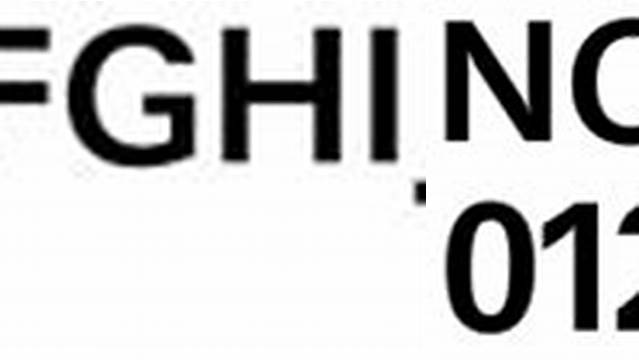
Maxima Medium Font: A Deep Dive
Alright, let's get acquainted with the star of the show: the Maxima Medium font. This isn't just any font; it's a workhorse designed for clarity and style. The Maxima font family is known for its clean lines and readability, making it a popular choice for both print and digital media. Its medium weight offers a balance between boldness and elegance, suitable for various design needs. Think of it as the Goldilocks of fonts – not too heavy, not too light, but just right! The core of the Maxima Medium font lies in its ability to convey messages effectively while maintaining an aesthetic appeal. It’s a sans-serif font, which means it lacks the small strokes (serifs) at the ends of letters, contributing to its modern and streamlined look. This design choice makes it incredibly versatile, adapting well to everything from headlines to body text. Understanding the nuances of the Maxima Medium font is crucial before you even think about a maxima medium font free download. This means knowing the characters, letter spacing, and the overall feel that it gives to your design. The designers behind the Maxima Medium font carefully crafted each letter to ensure consistency and readability. This level of detail means you can expect a polished and professional look, no matter where you use it. The Maxima Medium font offers a wide range of applications due to its versatile nature. It's great for branding, headings, or even creating a clean and uncluttered website layout. Its clarity makes it a top pick for communicating information in a visually appealing way. Before jumping to the maxima medium font free download options, explore the different styles and weights the Maxima font offers. This can help you choose the perfect match for your project, allowing for a cohesive and professional design that resonates with your audience. By getting to know the Maxima Medium font in-depth, you’ll be well-prepared to make the most of its design possibilities. Ultimately, the goal is to use the font in a way that enhances your message and creates a positive impression.
Maxima Medium Font History and Design
So, let's delve into the past and uncover the origins of the Maxima Medium font! Behind every font, there’s a story – a tale of creativity, meticulous design, and the desire to shape visual communication. The Maxima Medium font wasn't just conjured up overnight; it was a product of careful planning and creative execution. Understanding the design process gives you a greater appreciation for the font's functionality and beauty. When you start looking for your maxima medium font free download, knowing its history will make you see its significance. The designers of the Maxima Medium font most likely drew inspiration from the existing font families to create something unique. The design process included sketching the letters, refining their shapes, and optimizing their readability across different sizes and mediums. The Maxima Medium font aims for a balance between form and function. It should look good, but it must also be readable at a glance. This is especially important in today's fast-paced digital world, where attention spans are shorter than ever. The font's design philosophy revolves around simplicity, efficiency, and a touch of modern elegance. The designers likely considered how the font would appear in headlines, body text, and other design elements. They ensured the font would work seamlessly across different design platforms and applications. To fully understand the design, it’s helpful to analyze the character set. Examine the letterforms, numerals, and punctuation marks to see how they come together to form a harmonious whole. This level of detail adds a professional finish to your projects, making sure your design is as clear as it is attractive. Before you decide on a maxima medium font free download, remember its historical context. This will allow you to use it more effectively and incorporate it into your projects. Understanding the font’s history can lead you to find more creative and effective uses. Now that you have some background information, you’re ready to take your maxima medium font free download and use the font to the best of its ability.
Maxima Medium Font: Where to Use It
Now, let's explore where you can put the Maxima Medium font to good use! The versatility of this font is one of its greatest strengths. Whether you're a budding graphic designer, a content creator, or simply someone who loves to dabble in design, this font opens a world of possibilities. From branding to web design, the Maxima Medium font can make your work shine. Consider the impression you want to create. The Maxima Medium font provides a clean, modern look that’s suitable for many applications. When thinking about a maxima medium font free download, think about what projects you're working on. For branding projects, the Maxima Medium font is ideal. It is perfect for logos, business cards, and marketing materials. Its clarity makes it ideal for communicating your brand's message effectively. The key is selecting the appropriate font size and color to create a cohesive look that aligns with your brand’s identity. The Maxima Medium font also works perfectly for web design. With its high readability, it’s ideal for both headlines and body text on websites. Ensure your content is clear and engaging for your users. Its legibility makes it a great choice for a website layout. You can achieve a seamless and aesthetically pleasing design. The Maxima Medium font shines in print media too. Think about flyers, brochures, and magazines. The print medium offers different considerations, such as the paper and ink used. The Maxima Medium font performs well because it remains clear and legible in print. Always test your design by printing it out before you finalize it. When searching for a maxima medium font free download, make sure the license covers all your intended uses. This can help ensure you're adhering to all copyright restrictions. Consider the license type and restrictions before you download your font. By using the Maxima Medium font across a range of mediums, you ensure consistency in your brand messaging. It creates a recognizable visual identity. This can help build trust and recognition among your audience. Understanding these use cases will help you make the most of your maxima medium font free download. You'll be ready to enhance your creative projects.
Maxima Medium Font vs. Other Fonts
Alright, let's see how the Maxima Medium font stacks up against its competitors! In the vast world of typography, there are so many fonts to choose from. So, why pick the Maxima Medium font? We'll look at its unique strengths, and show you why it might be the perfect choice for your next project. When you're on the hunt for a maxima medium font free download, it’s useful to understand what sets it apart. Compare the Maxima Medium font to the other sans-serif fonts, like Helvetica or Arial. The Maxima Medium font offers a more modern and subtle feel. It can appear to be a bit more friendly and inviting. Consider how the font aligns with your project's goals and target audience. Next, let’s check out the serif fonts, such as Times New Roman and Garamond. These fonts have small strokes at the ends of letters (serifs). Serif fonts often provide a sense of sophistication. The Maxima Medium font, lacking these serifs, gives a clean, minimalist look. The decision between serif and sans-serif often comes down to the project's tone. When getting a maxima medium font free download, weigh the pros and cons of each style. What about the alternatives? Think about other sans-serif fonts such as Open Sans or Lato. These fonts are also popular for their readability. However, the Maxima Medium font can stand out. Its unique letterforms and design details give it a distinct look. This font has its own personality and can make your work more visually attractive. Consider your design's requirements. The Maxima Medium font might be the right one if you need something with clarity and a modern vibe. Evaluate the font's weight and style options. The Maxima Medium font offers different weights, so you can get the right look. This can help you make your design projects more successful. Now, with this knowledge, you can make a more informed choice. Using a maxima medium font free download is just the first step. It's about selecting a typeface that enhances your project’s message and aesthetic appeal.